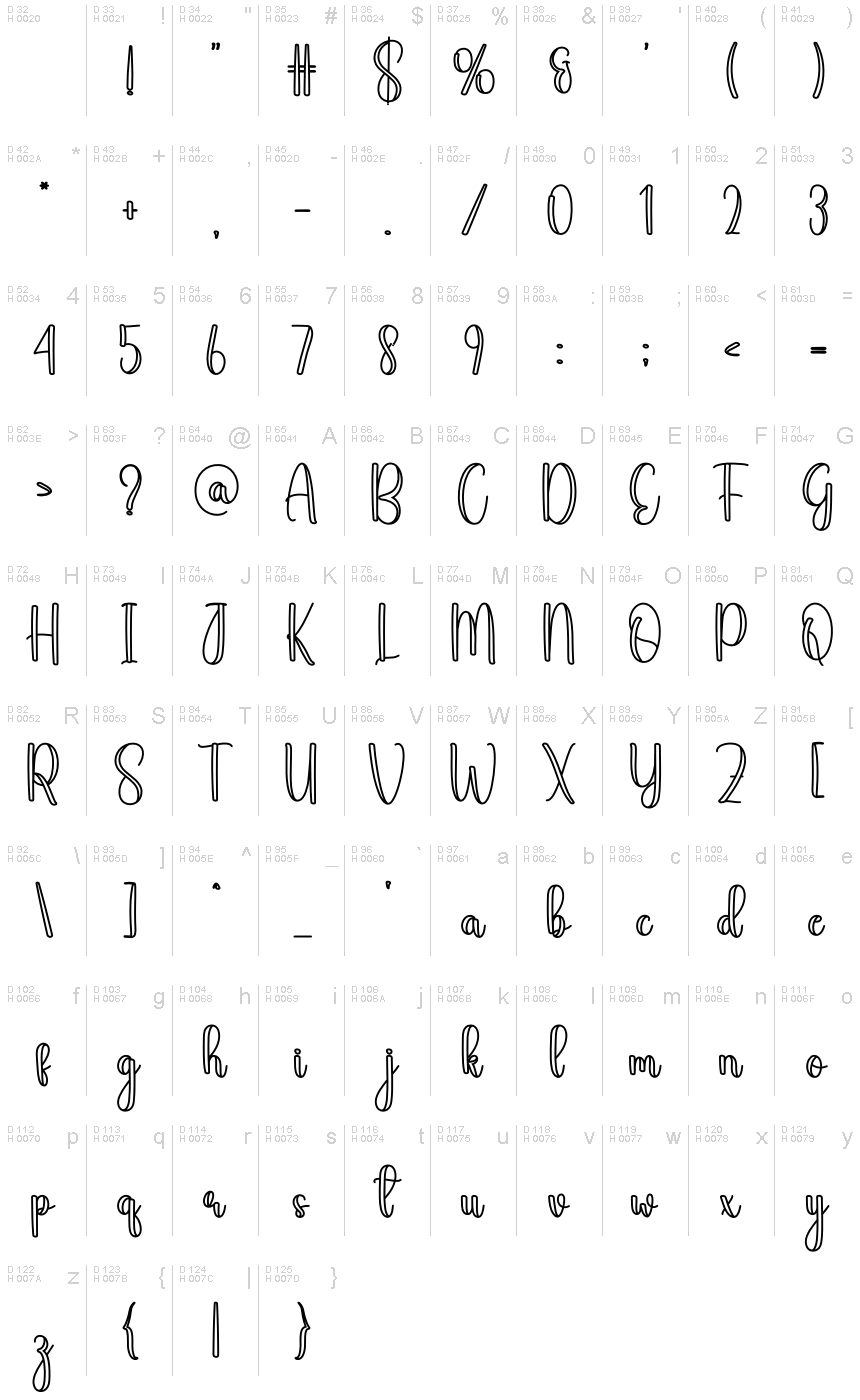
Handful
Handful font, designed by Scratchones, embodies a playful charm with its expressive handwritten style. The outlined letters create a dynamic contrast that captures attention and invokes warmth. Each character flows effortlessly, giving the impression of a personal touch, making it perfect for casual and creative projects.
With its unique flair, Handful excels in applications ranging from whimsical invitations to vibrant branding materials. Its informal elegance suits everything from greeting cards to children’s book titles, enhancing the visual narrative with an inviting personality. Whether you aim to evoke nostalgia or simply add a cheerful note to your designs, Handful stands out as an engaging choice that breathes life into any text.